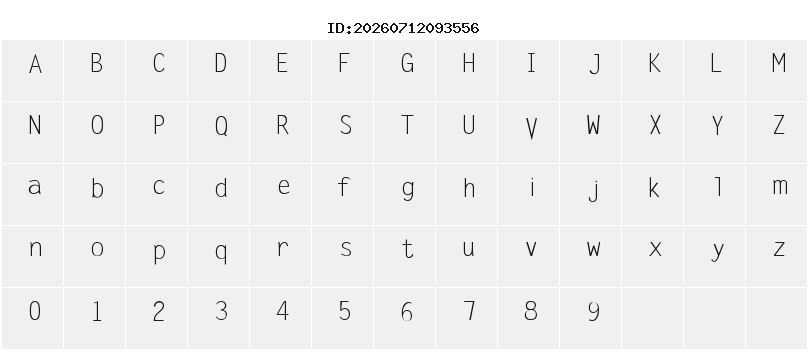
昆明海鸥体 Preview
• Font Name: 昆明海鸥体
• Full Font Name: 昆明海鸥体
• Character Count: 7506
• Description: 由AI生成的字体
About 昆明海鸥体.ttf
昆明海鸥体.ttf is a modern, elegant sans-serif font designed for ultimate readability and visual harmony. Perfect for branding, headlines, web design, and print materials.